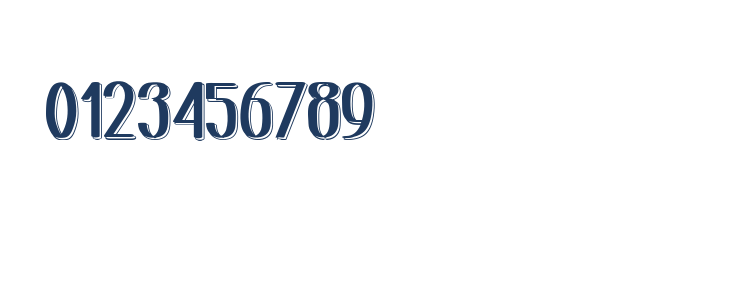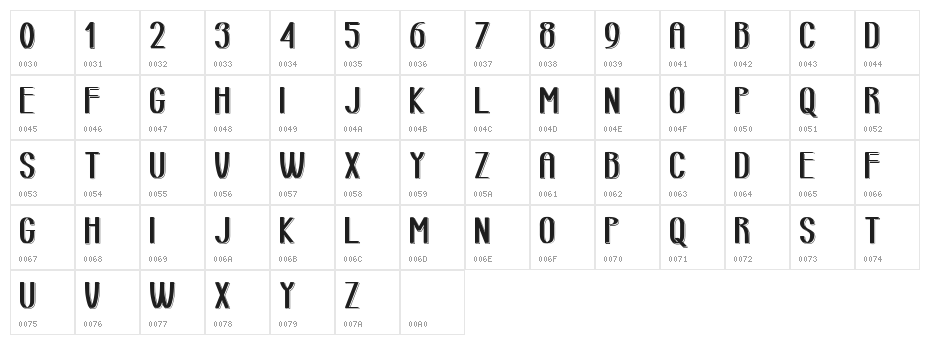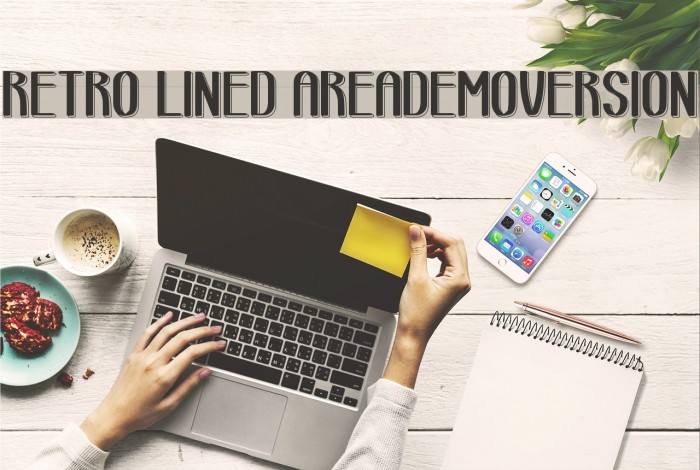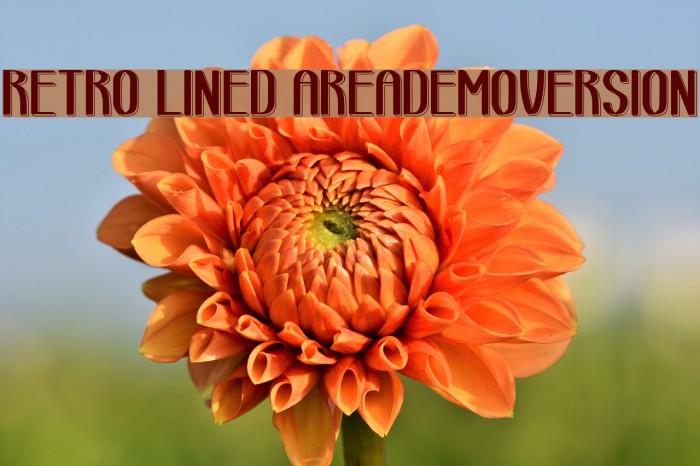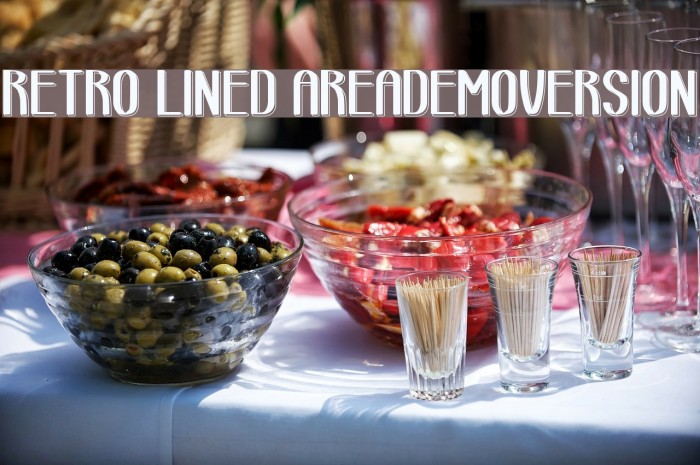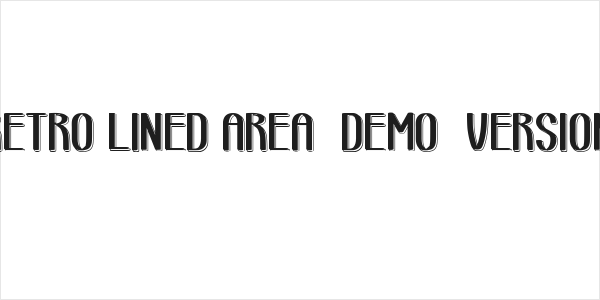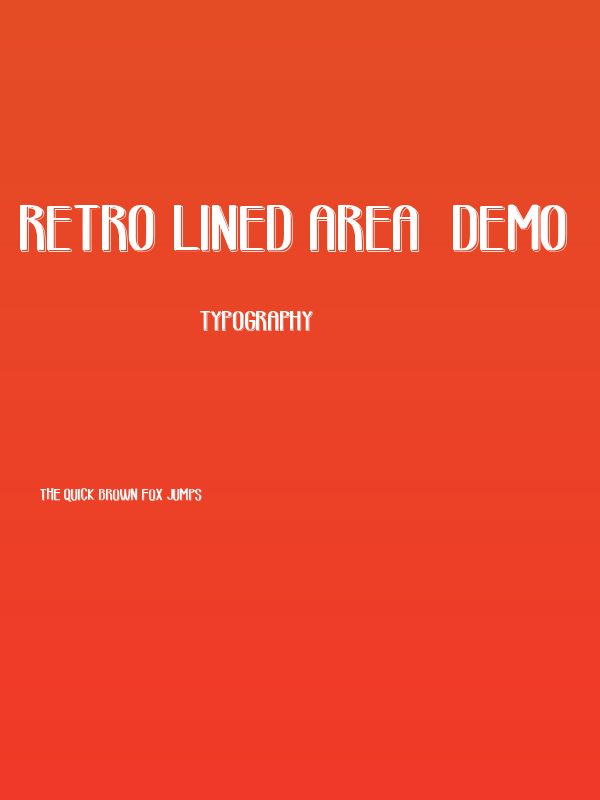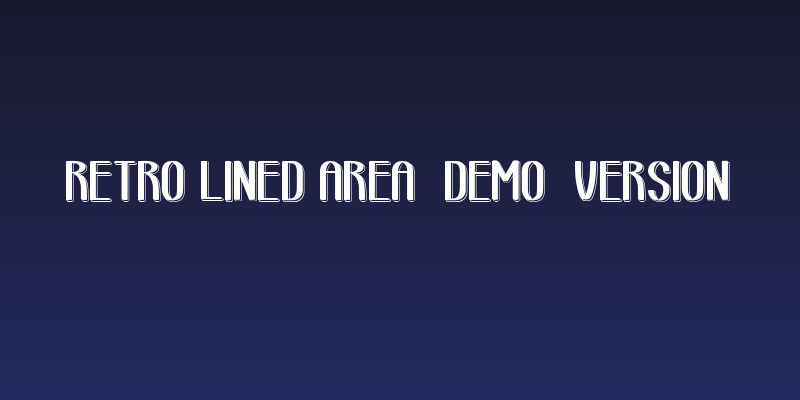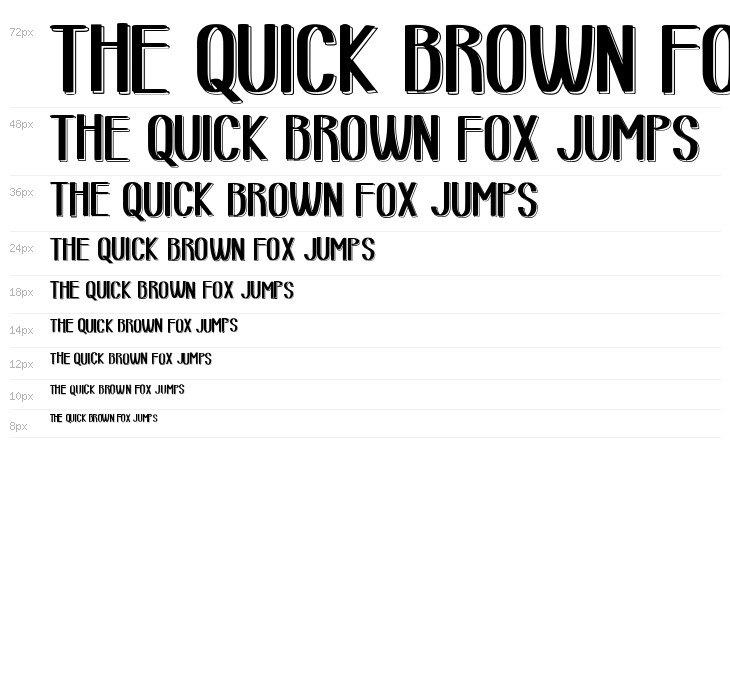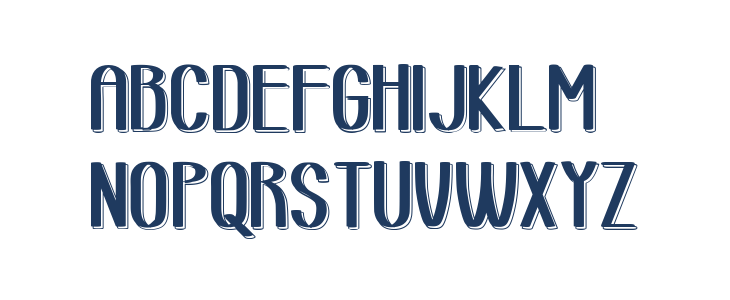
retro lined area_demo-version Font
retro lined area_demo-version Description
This font features a distinctive retro style with bold, lined characters that evoke a sense of nostalgia. The uppercase and lowercase letters are designed with a consistent width, creating a uniform appearance. The numbers and special characters maintain the same lined aesthetic, ensuring a cohesive look across all elements. The font's unique design makes it stand out, with its bold lines and geometric shapes adding a touch of vintage flair. Its decorative nature is perfect for projects that aim to capture a retro or classic vibe.
| Proposed Projects | Ideal for retro-themed posters, vintage branding, and decorative signage. |